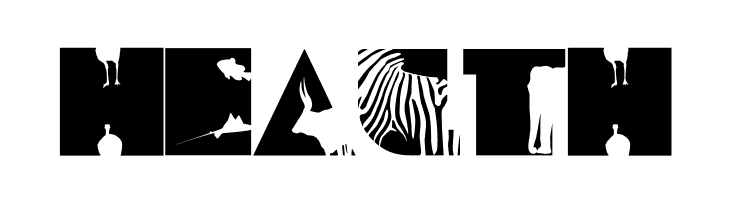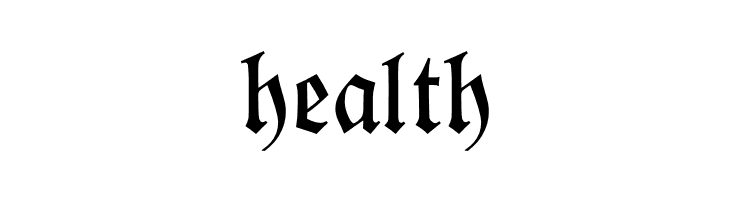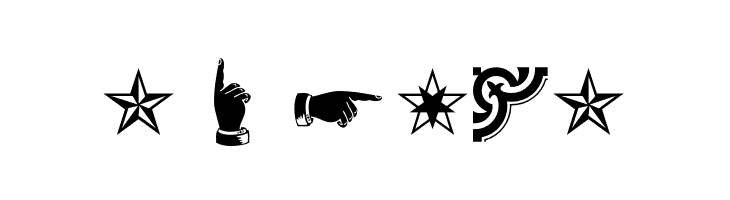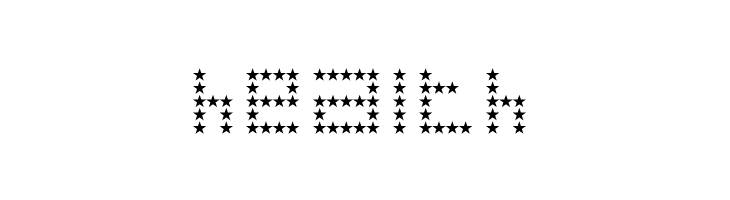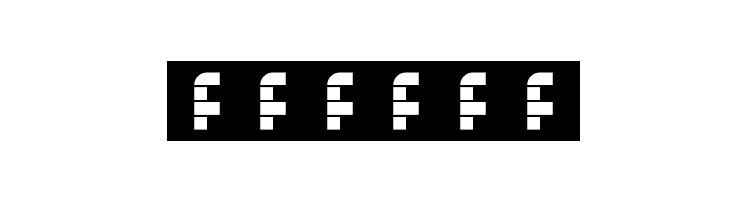
A modern, geometric sans-serif font with clean lines and balanced characters.
A bold, blackletter font with sharp, angular forms and high contrast strokes.
A bold, decorative font with animal silhouettes integrated into each character.
A traditional Blackletter font with intricate detailing and a medieval flair.
Ornate vintage dingbat and symbol set with hands, stars, borders, and faces.
The image does not depict a valid font.
A bold blackletter font with intricate Gothic detailing.
An ornamental and decorative font with intricate designs for each uppercase letter.